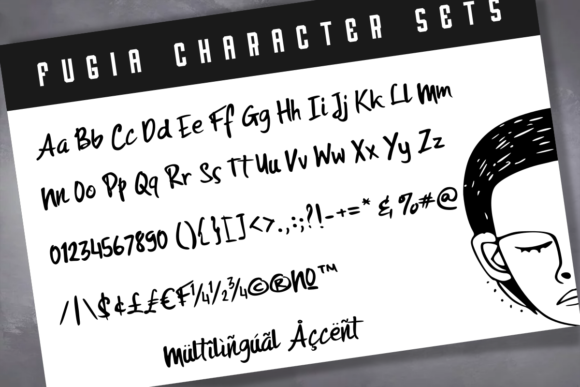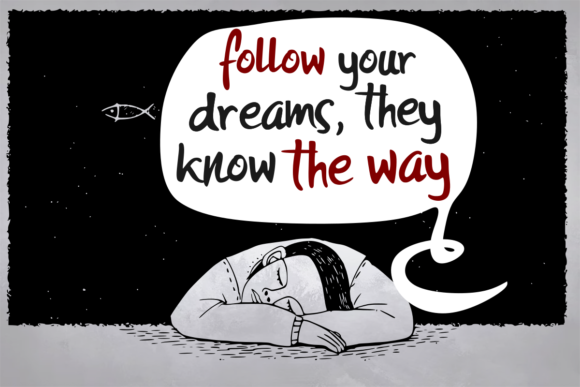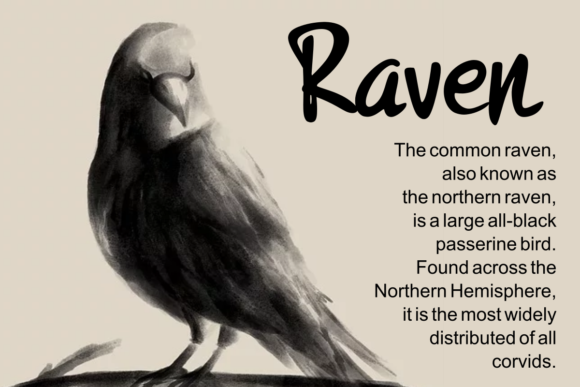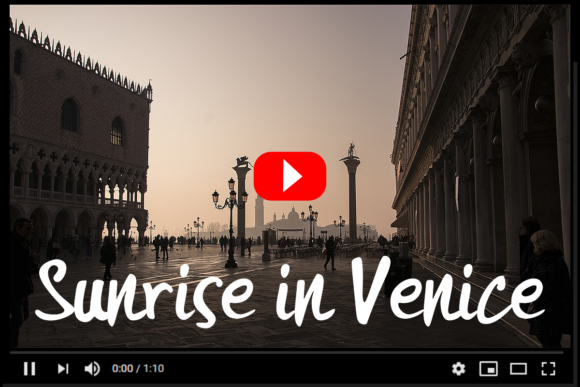
Fugia Font: Elevate Your Designs with Elegance and Timeless Style
Are you on the hunt for a font that exudes elegance and sophistication? Look no further than Fugia, a stunning flowing handwritten font that is sure to capture your heart. With its incredibly distinct and timeless style, Fugia is the perfect addition to your favorite projects, allowing you to create spectacular designs that stand out from the crowd.
The Essence of Fugia Font
Fugia is more than just a font – it’s an experience. Its elegant touch is palpable, making it an excellent choice for designers and crafters who want to add a touch of refinement to their work. Whether you’re creating a logo, branding materials, or simply want to add some flair to your digital or print projects, Fugia is the perfect companion.
What Makes Fugia Stand Out?
- Unique and Timeless Style: Fugia’s distinct style is both modern and classic, making it versatile enough to suit a wide range of design needs. Its timeless quality ensures that your designs will remain stylish and relevant for years to come.
- Elegant Touch: The flowing nature of Fugia gives it an undeniable elegance, perfect for projects that require a sophisticated look and feel.
- Versatility: From wedding designs and luxury branding to digital blogs and craft projects, Fugia’s versatility knows no bounds.
- User-Friendly: Designed to be easy to read and write, Fugia ensures that your message is communicated clearly without compromising on style.
Using Fugia in Your Projects
The possibilities are endless with Fugia. Here are a few ideas to get you started:
- Branding and Logos: Create a lasting impression with a logo that embodies elegance and sophistication.
- Wedding and Event Planning: Add a touch of class to your wedding invitations, menus, and event materials.
- Digital Content: Elevate your blog posts, social media graphics, and website content with a font that stands out.
- Crafting and DIY Projects: Whether you’re making cards, scrapbooking, or working on other craft projects, Fugia adds that special something.
Tips for Maximizing Fugia’s Potential
To truly make the most of Fugia, consider the following tips:
- Pair with Complementary Fonts: For maximum impact, pair Fugia with fonts that complement its flowing style. A sans-serif font can provide a nice contrast.
- Experiment with Colors: While Fugia’s elegance shines in black, don’t be afraid to experiment with colors that match your brand or project’s aesthetic.
- Play with Sizes: Fugia’s versatility means it looks great in various sizes. Experiment to find the perfect balance for your design.
Fugia is not just a font; it’s a design statement. Its elegant touch and timeless style make it an invaluable asset for designers and crafters looking to elevate their projects. Whether you’re aiming for sophistication, elegance, or simply want to add a unique flair to your designs, Fugia is the perfect choice. So why wait? Fall in love with Fugia’s distinct style and let it guide you in creating spectacular designs that leave a lasting impression.
Embrace the elegance and timelessness of Fugia. Elevate your designs and make them unforgettable with this beautiful, flowing handwritten font.